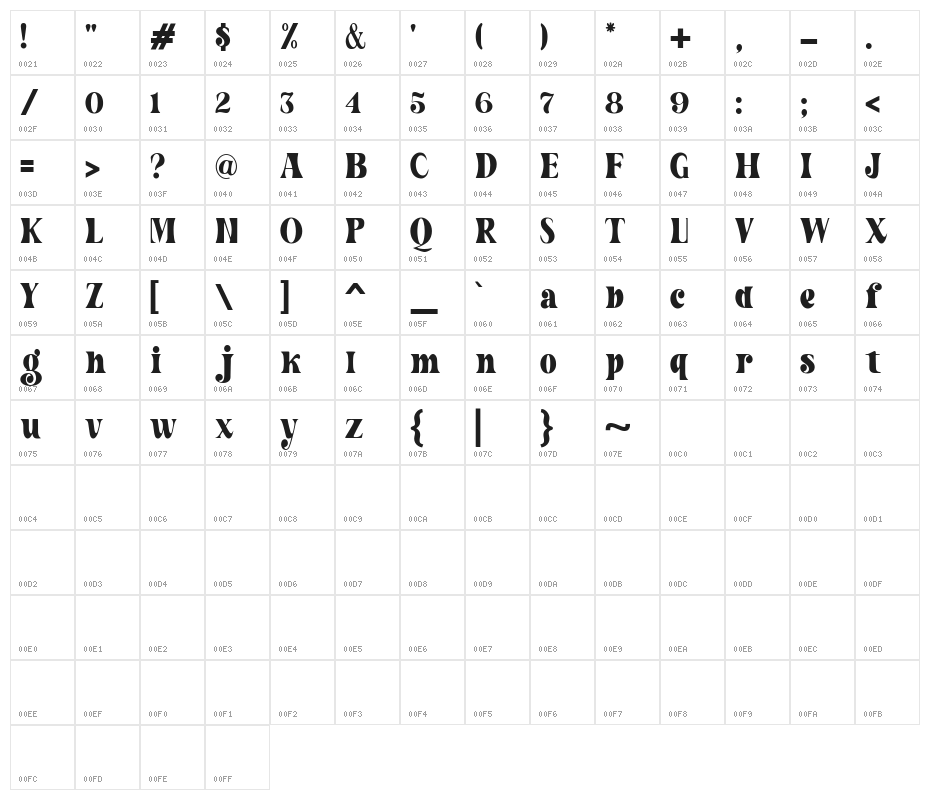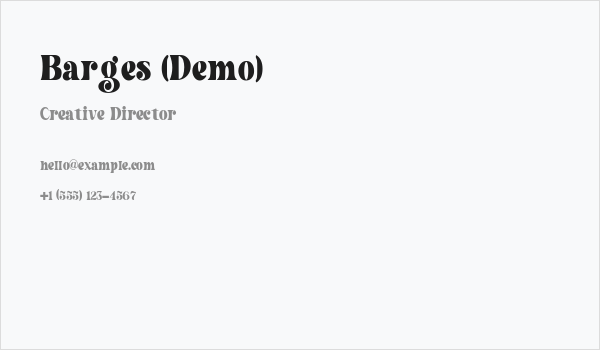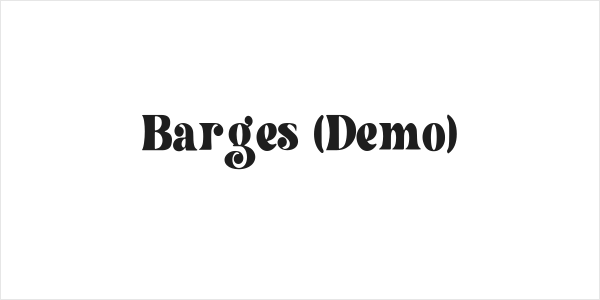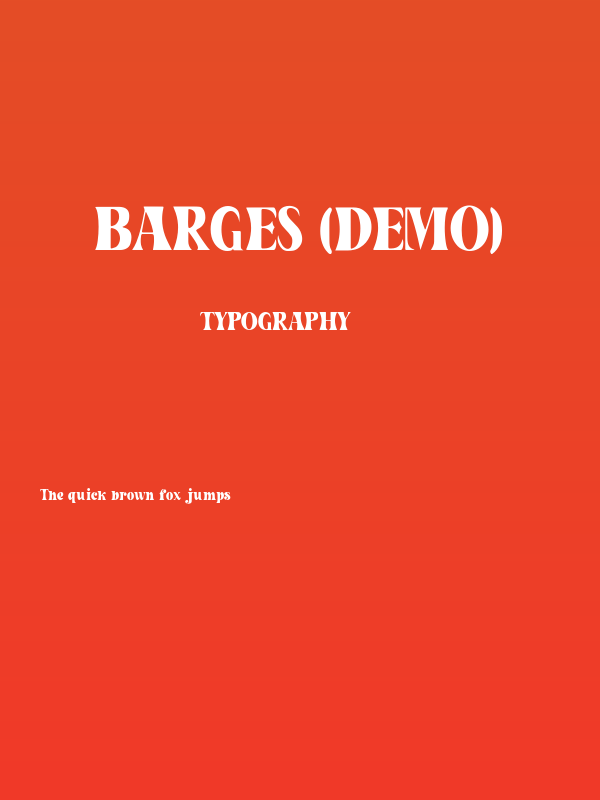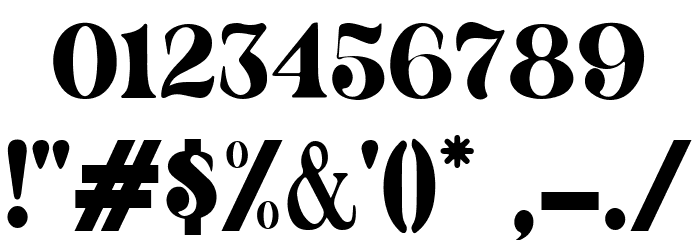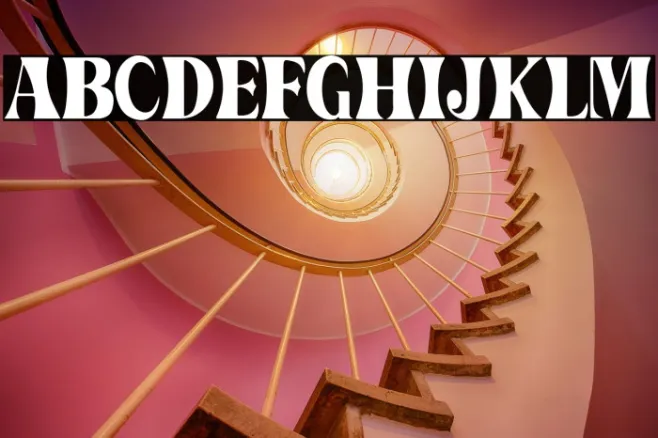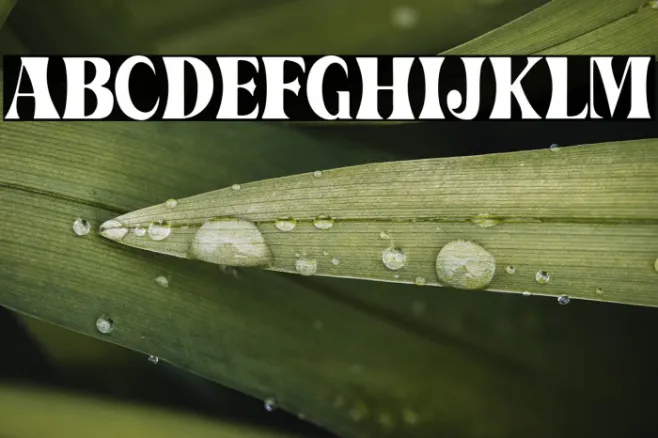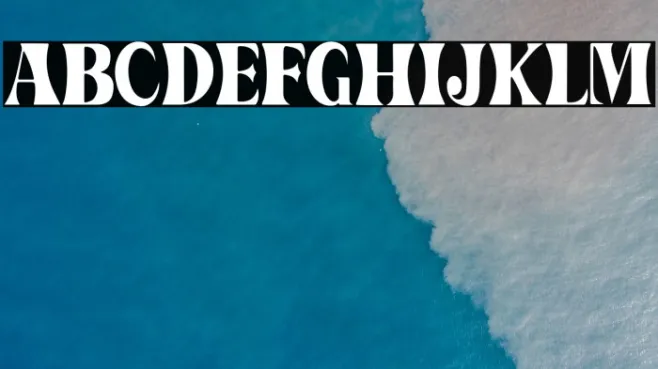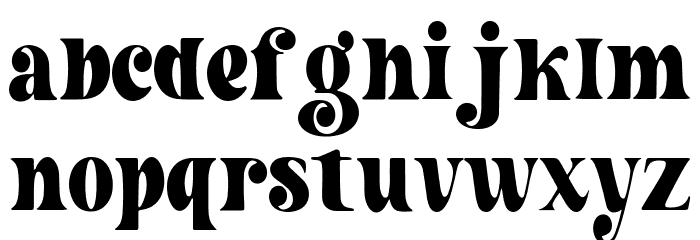
Barges (Demo) Font
Barges (Demo) Description
This font features a bold and dramatic style with high contrast between thick and thin strokes, creating a striking visual impact. The uppercase letters exhibit a unique blend of sharp angles and smooth curves, giving them a dynamic and artistic appearance. The lowercase characters maintain this boldness, with some letters incorporating playful swirls and loops that add a touch of whimsy. The numerals are equally bold, ensuring they stand out prominently. Special characters are designed with the same attention to detail, making them cohesive with the overall style. This font is perfect for making a statement and drawing attention.
| Proposed Projects | Ideal for branding, poster design, headlines, and any project requiring a bold and artistic touch. |